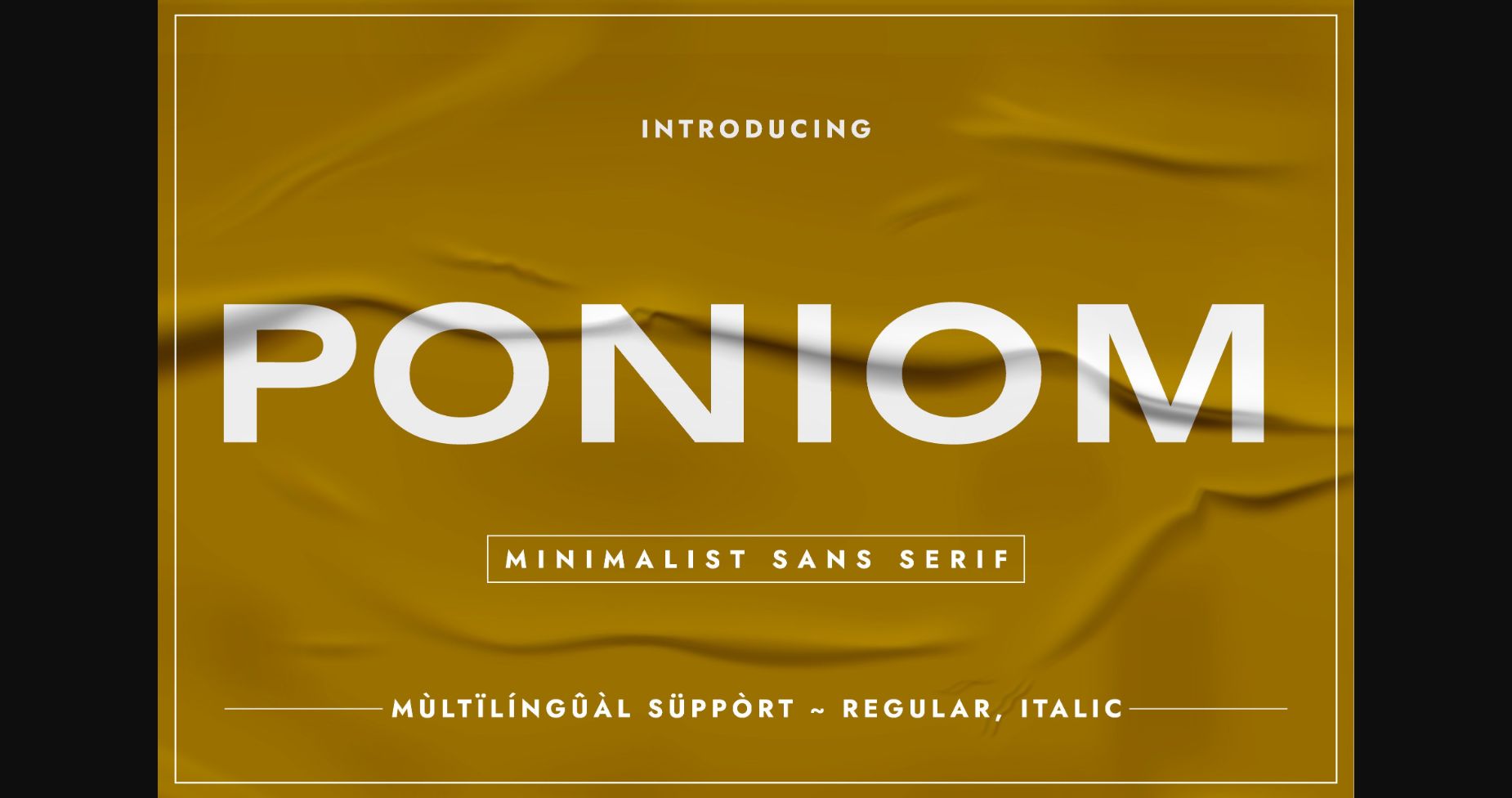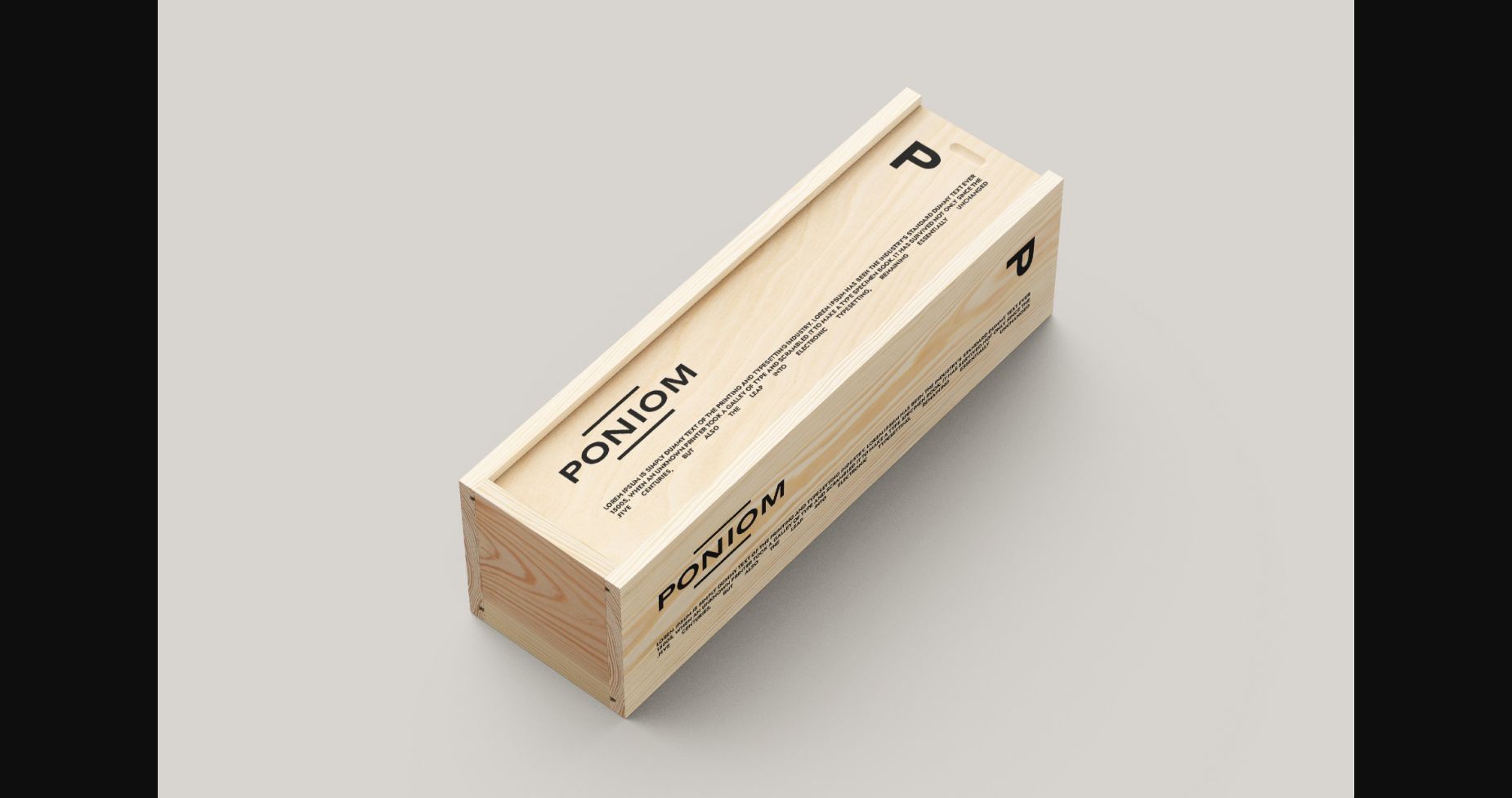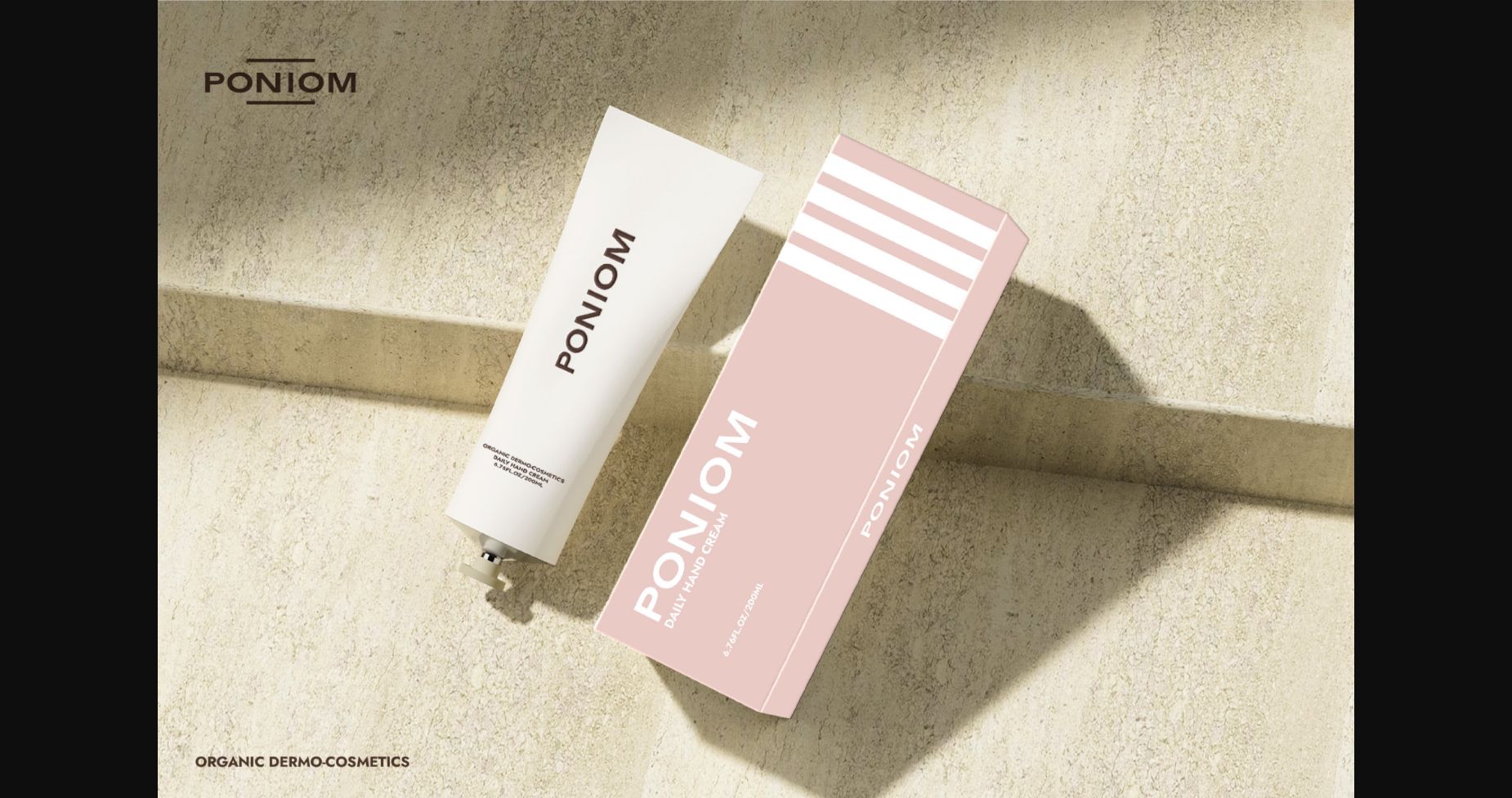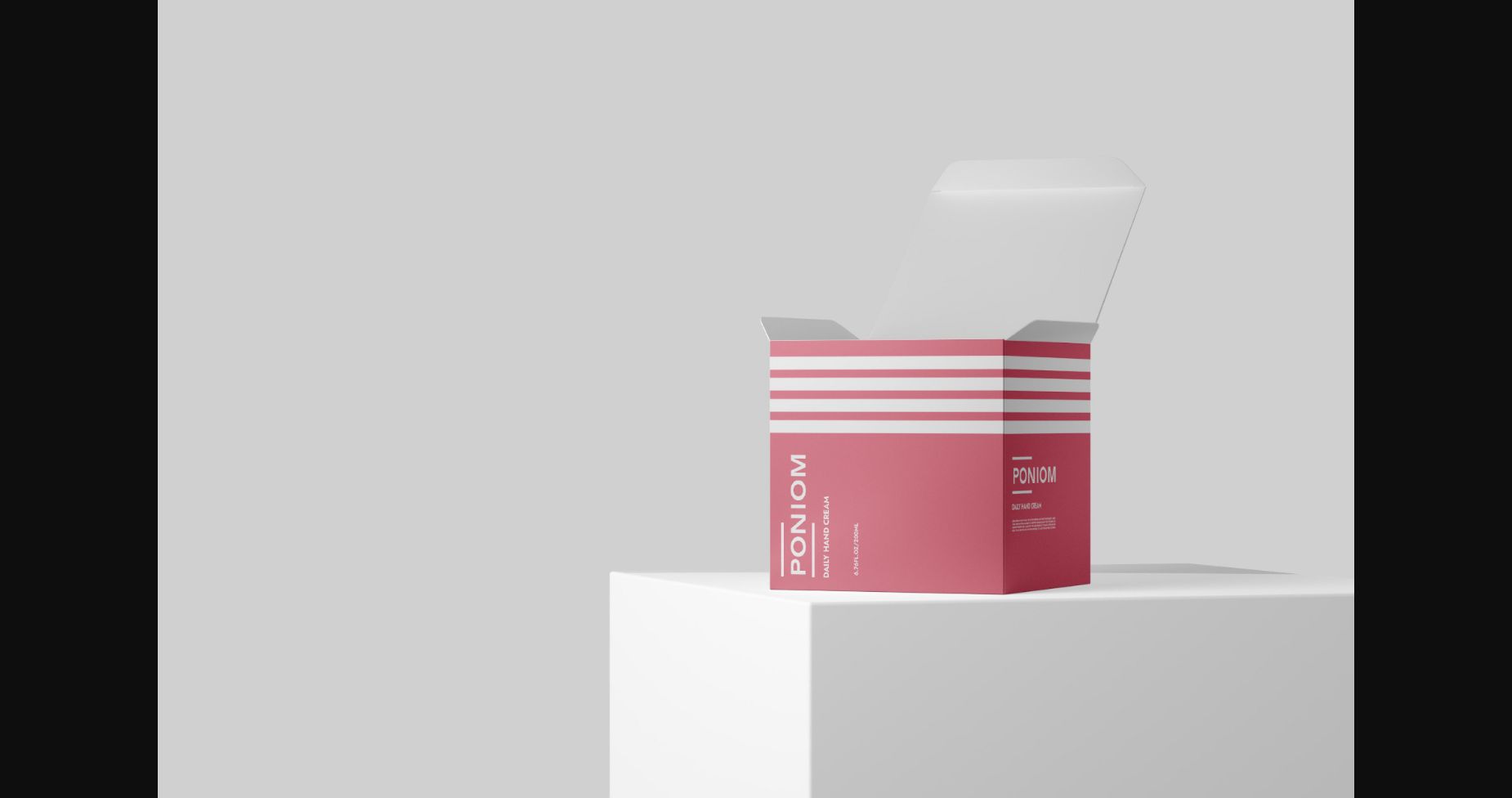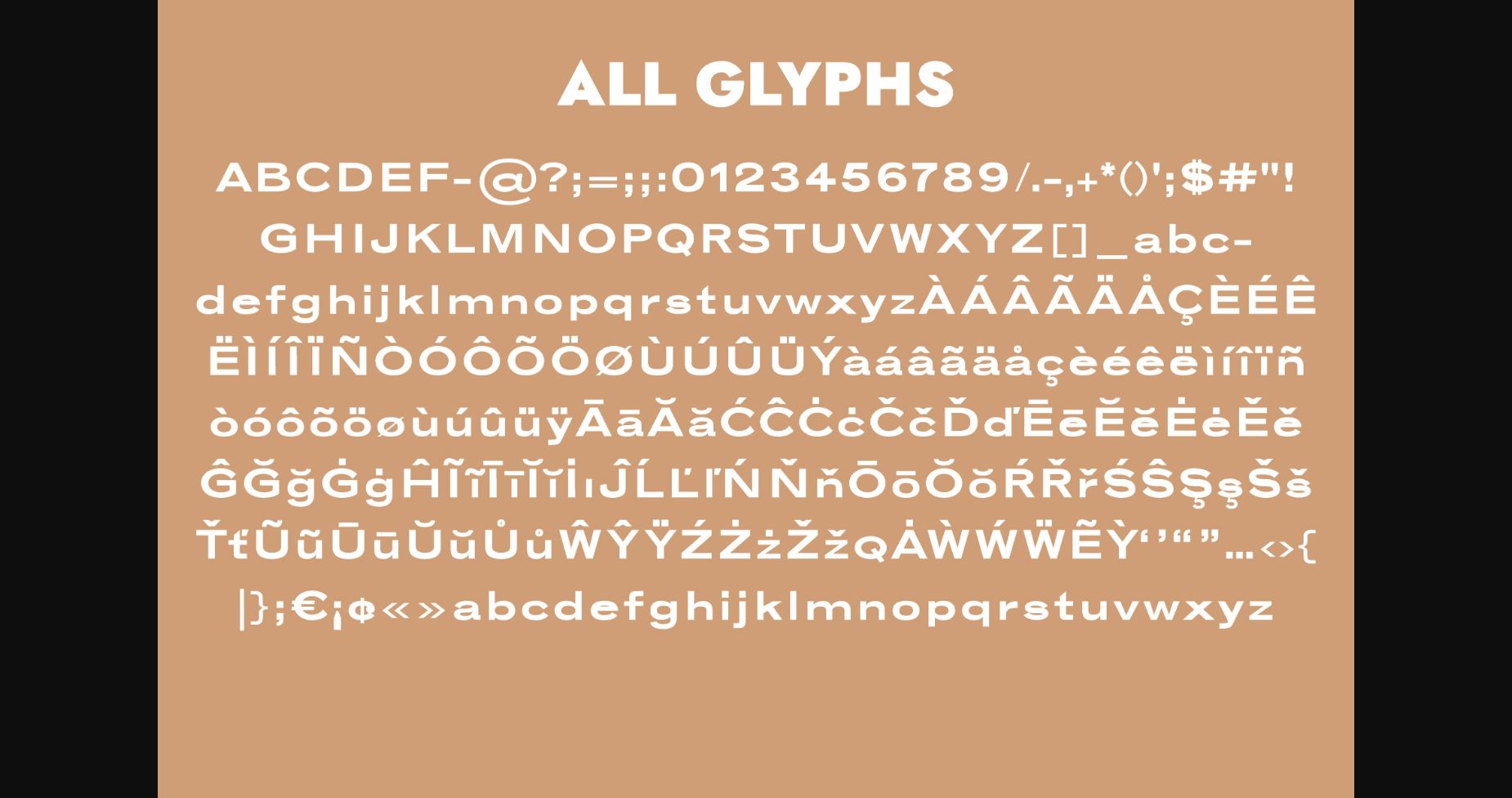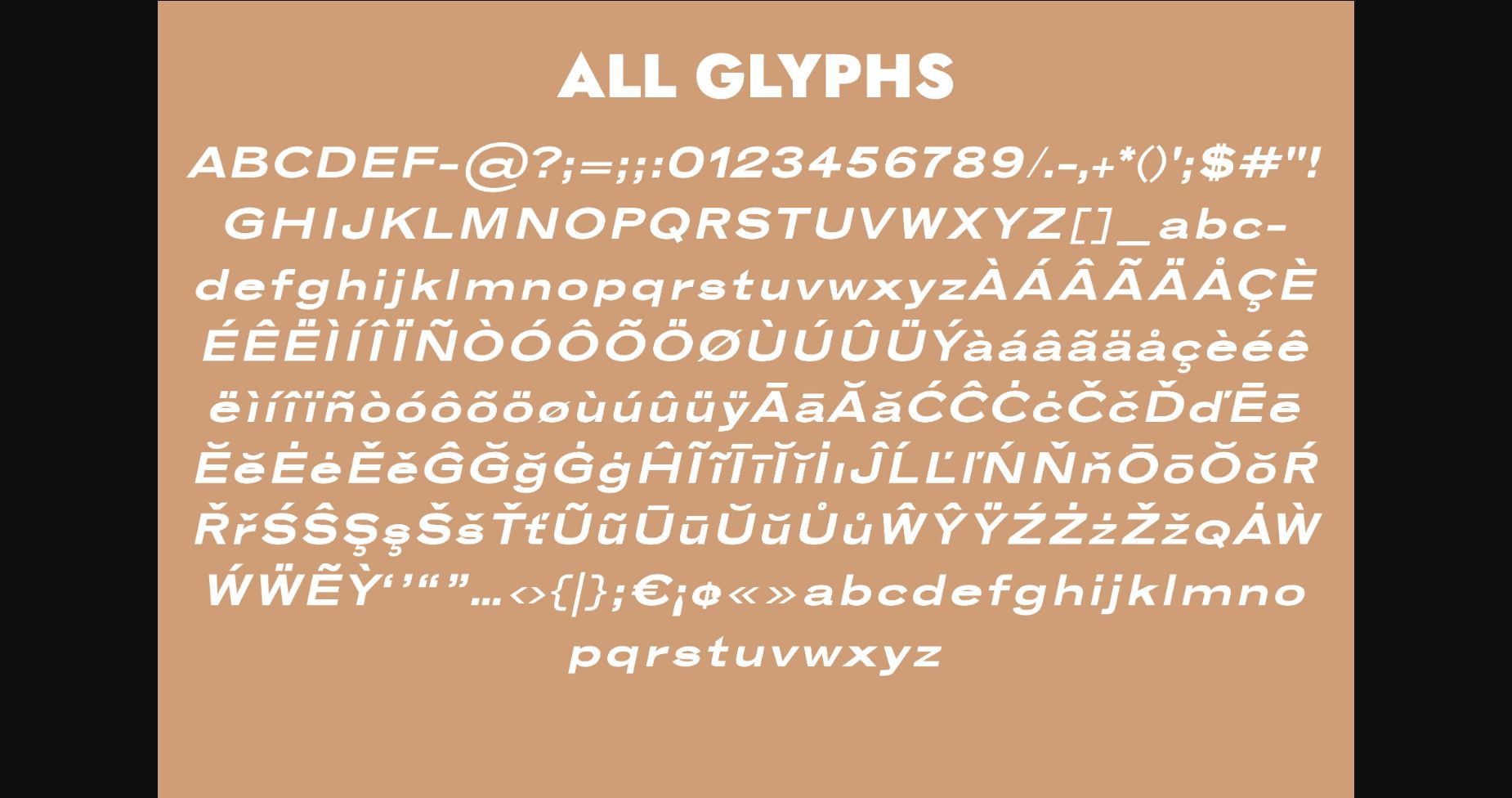
About Poniom Font
Poniom is an extended minimalist sans serif. Its versatility renders it a valid choice when it comes to creating designs that require some minimalistic and clean aspects. Use it in your creative project, and notice how it gives you powerful solutions for many contexts.